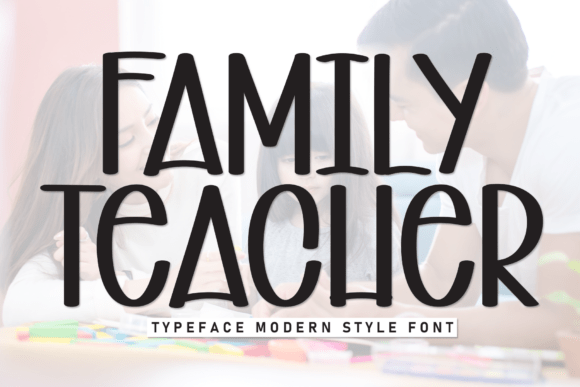
Discover the Whimsical Charm of Family Teacher Font
Have you ever found yourself lost in a sea of blank paper, searching for the perfect font to bring your design to life? I know I have. The blank page can be daunting, but the moment the right font comes along, it’s like a spark of creativity ignites within us.
Meet Family Teacher Font, a delightful handwritten display font that embodies the warmth and playfulness of a bygone era. Its sweet and friendly aura makes it a perfect choice for wedding invitations, greeting cards, or any design that needs a touch of whimsy. As a designer, you’ll appreciate the versatility and charm of Family Teacher Font, which can elevate even the most mundane designs into something truly extraordinary.
Family Teacher Font Key Features
- Unique Characteristics: Family Teacher Font features a friendly, approachable design with a mix of rounded and geometric shapes, making it perfect for educational and family-related materials.
- Font Style Variations: Family Teacher Font comes in multiple styles, including Regular, Italic, Bold, and Bold Italic, allowing for added flexibility in design and layout.
Review of Family Teacher Font
When I first laid eyes on the Family Teacher Font, I was struck by its friendly and approachable feel. The rounded edges and classic design elements evoke a sense of nostalgia, making it perfect for educational materials, children’s books, and other projects where a warm and inviting tone is desired. ✨
- The font is highly legible, even at smaller sizes, making it ideal for body text and captions.
- The font family includes a range of weights and styles, offering flexibility and versatility for designers.
- The font is well-suited for digital applications, with clear rendering on various devices and platforms.
- The font may not be the most exciting or innovative choice for designers looking to push the boundaries of typography.
- The font’s classic design may feel too traditional or conservative for some projects or audiences.
- The font may not be as effective for projects requiring a more modern or edgy aesthetic.
Overall, the Family Teacher Font is a solid choice for designers seeking a friendly, approachable font for educational or family-related projects. While it may not be the most exciting option, it’s a reliable and versatile choice that’s sure to please.
Tips for Getting the Most Out of the Family Teacher Font
Use the Family Teacher Font to create a sense of warmth and approachability in your designs. Pair the font with images of children, families, or educational settings to create a cohesive and engaging visual theme.
The Family Teacher Font is ideal for use in educational settings, such as teacher resources, lesson plans, and student materials. It can also be used in family-related projects, such as parenting guides, family newsletters, and educational websites.